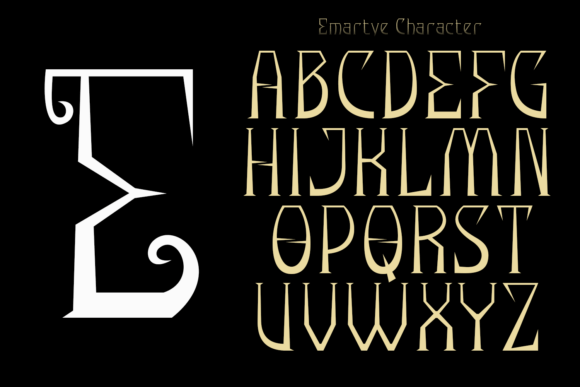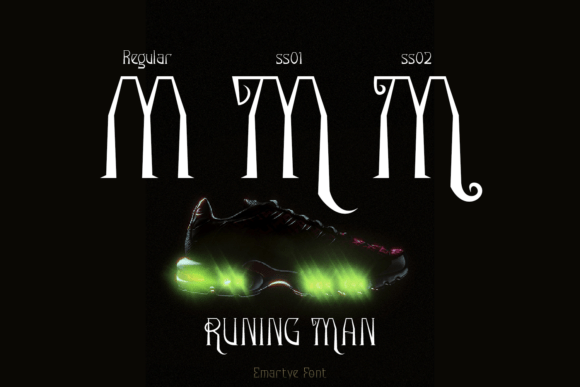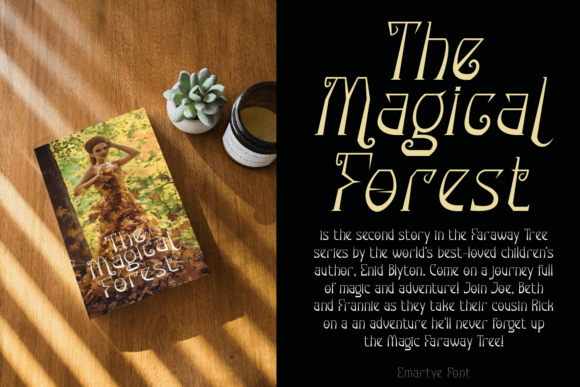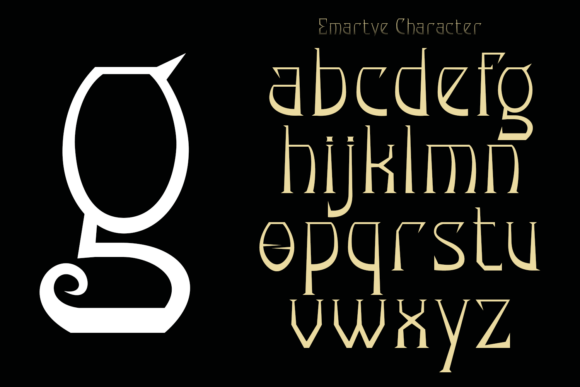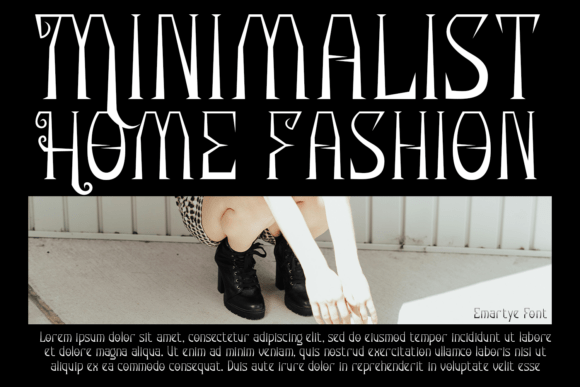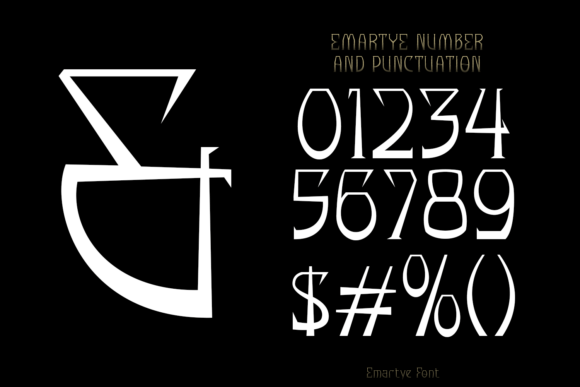
The Emartye Font: A Modern, Curly Powerhouse for Your Design Projects
A First Impression: What Makes Emartye Stand Out
Emartye is a display font that exudes modernity and curliness, making it perfect for adding a strong and powerful touch to your projects. Its unique blend of contemporary and vintage elements makes it an excellent choice for a wide range of design applications, from book covers and product labels to logos, badges, and more.
An Honest Review: The Good, the Bad, and the Quirky
What I Love About Emartye ✨
- ✅ Its versatility: Emartye can be used for a variety of design projects, from modern and bold to elegant and refined.
- ✅ The range of OpenType features: This font comes with a range of OpenType features, including stylistic alternates, swashes, and glyphs, which allow for endless creative possibilities.
- ✅ Its uniqueness: Emartye has a distinct personality that sets it apart from other fonts, making it perfect for designers looking to create something truly unique.
- ⚠️ Limited use for body text: Due to its curly and display nature, Emartye may not be the best choice for body text or long-form content.
- ⚠️ May require adjustments for certain design applications: Depending on the design project, you may need to make adjustments to the font size, spacing, or kerning to achieve the desired look.
The Emartye font was designed with the intention of creating a modern, curly display font that would bring a strong and powerful touch to design projects. The designer aimed to create a font that would be versatile and adaptable, suitable for a wide range of design applications. With its unique blend of contemporary and vintage elements, Emartye is sure to make a statement in any design project.
Q: What is the Emartye font best suited for?
A: Emartye is best suited for display purposes, such as book covers, product labels, logos, badges, and more.
Q: Can I use Emartye for body text?
A: While Emartye can be used for body text, it may not be the best choice due to its curly and display nature. It’s recommended to use it for headings or titles.
Q: Does Emartye come with OpenType features?
A: Yes, Emartye comes with a range of OpenType features, including stylistic alternates, swashes, and glyphs.